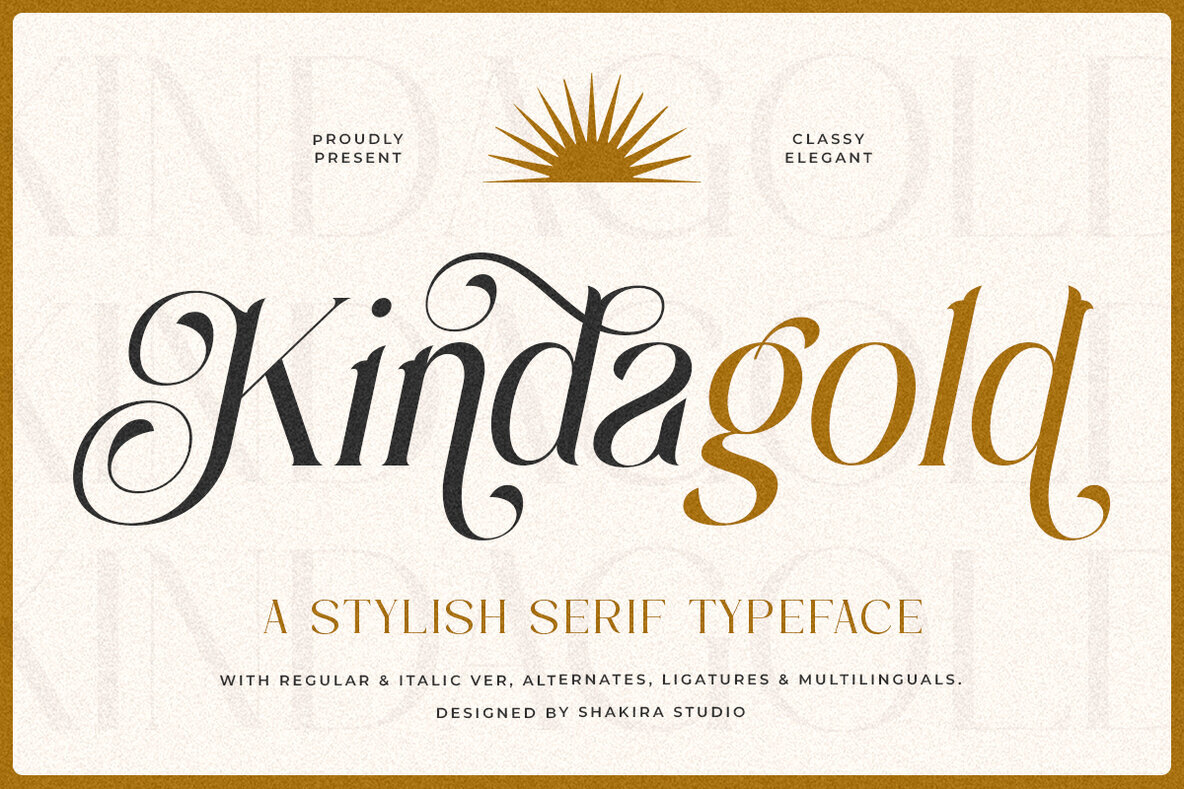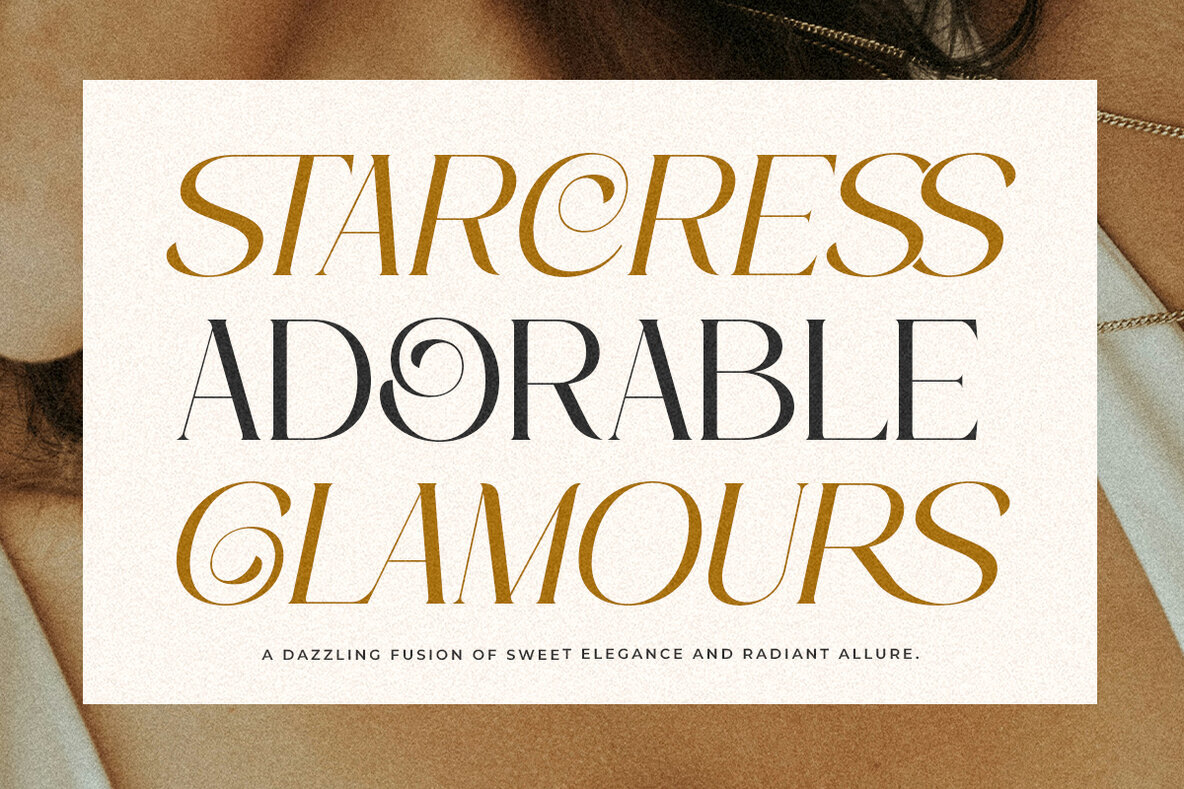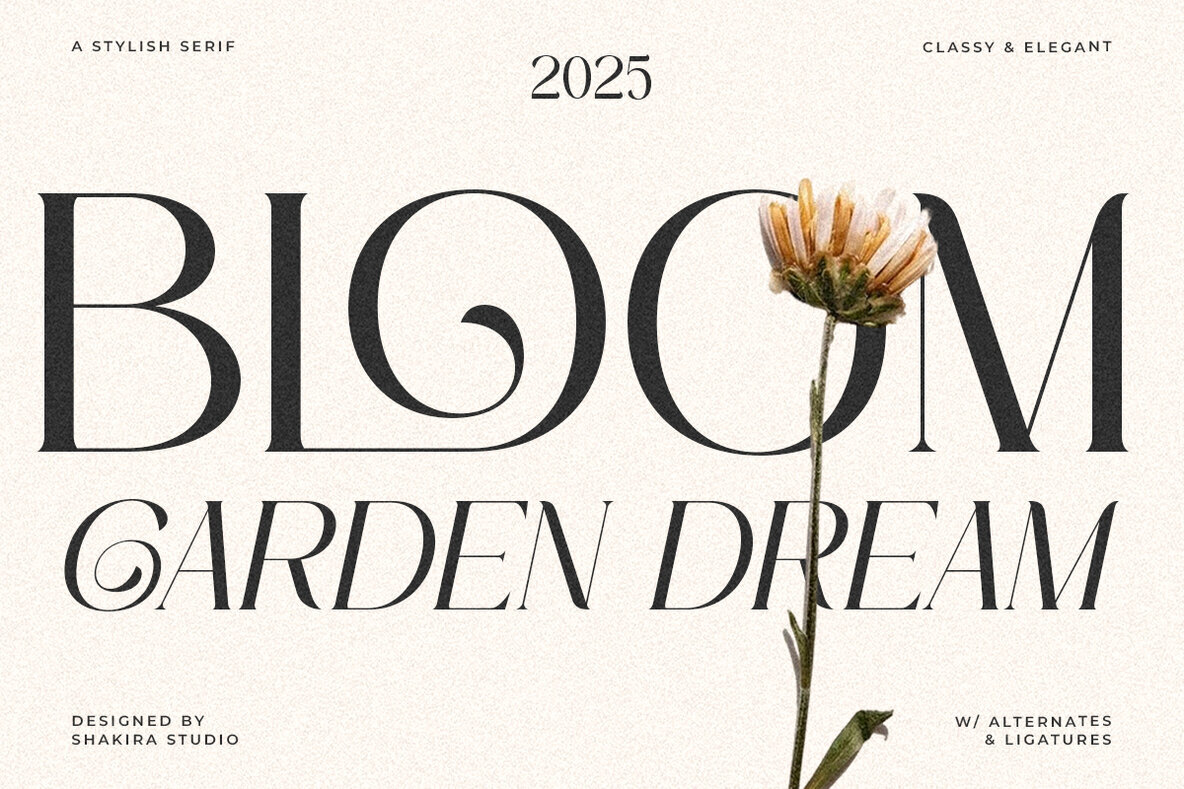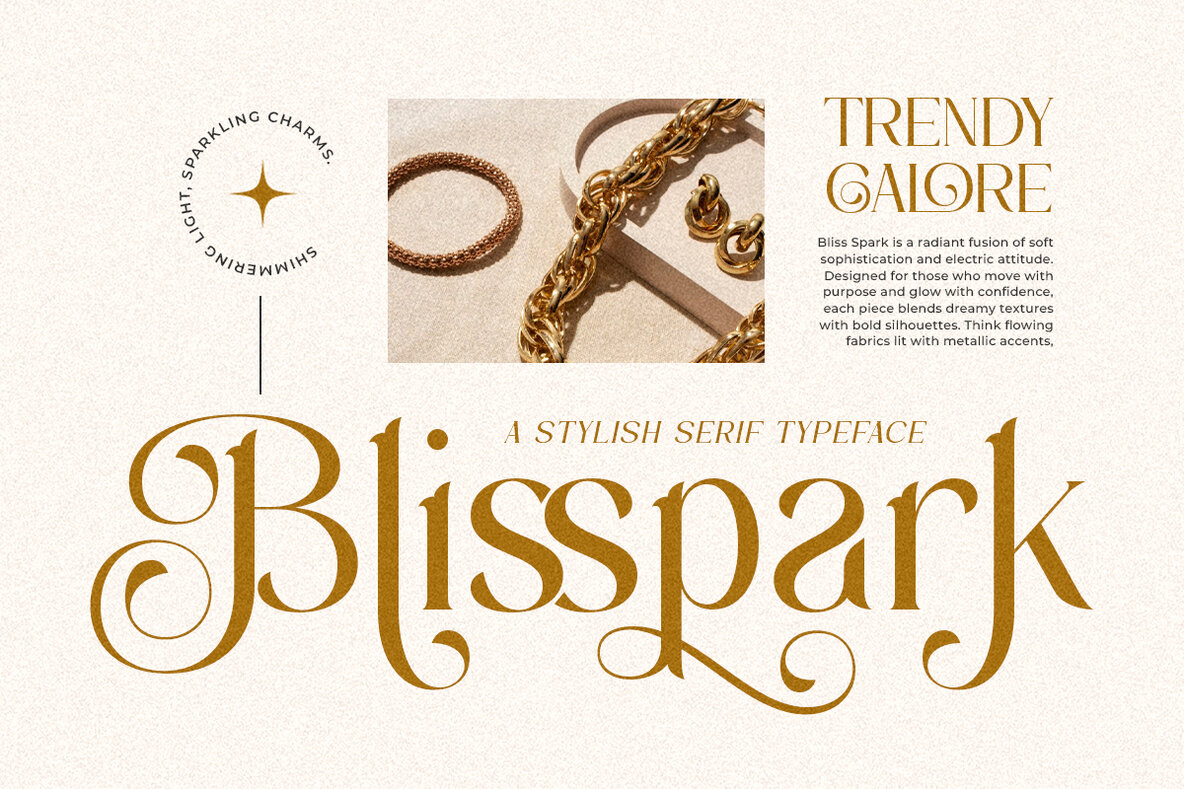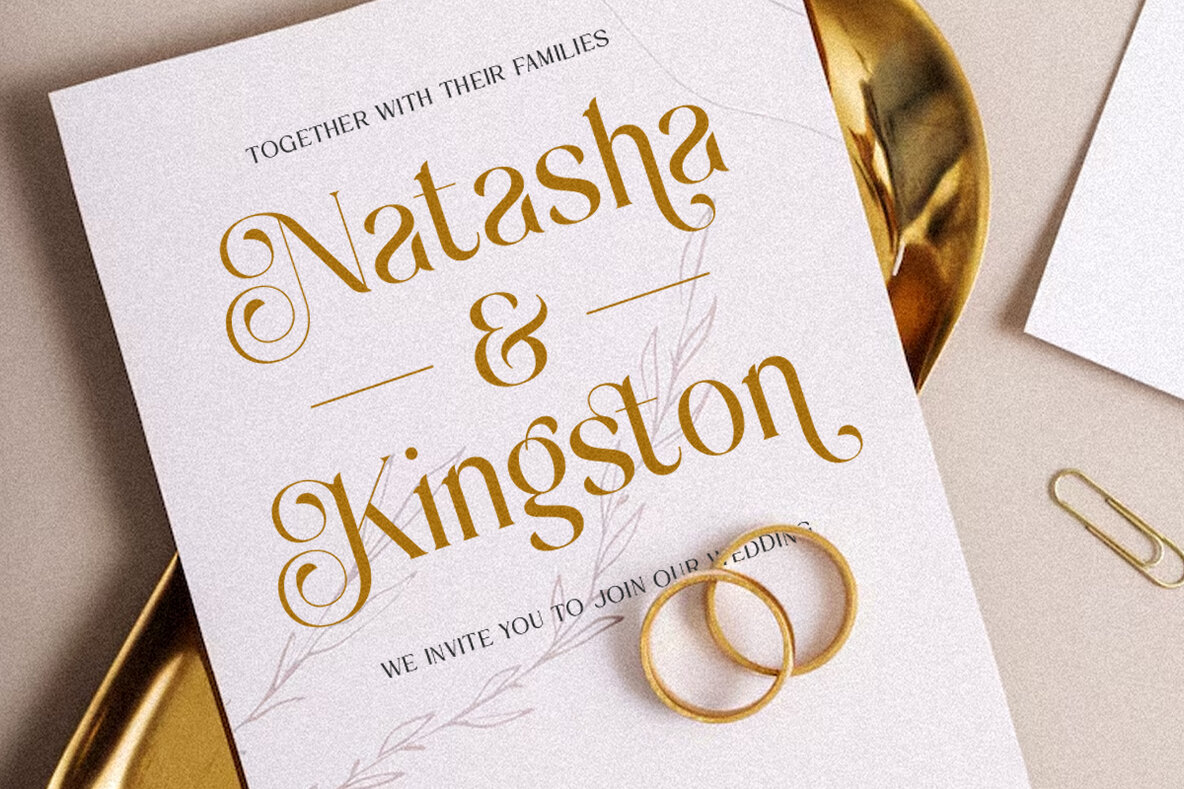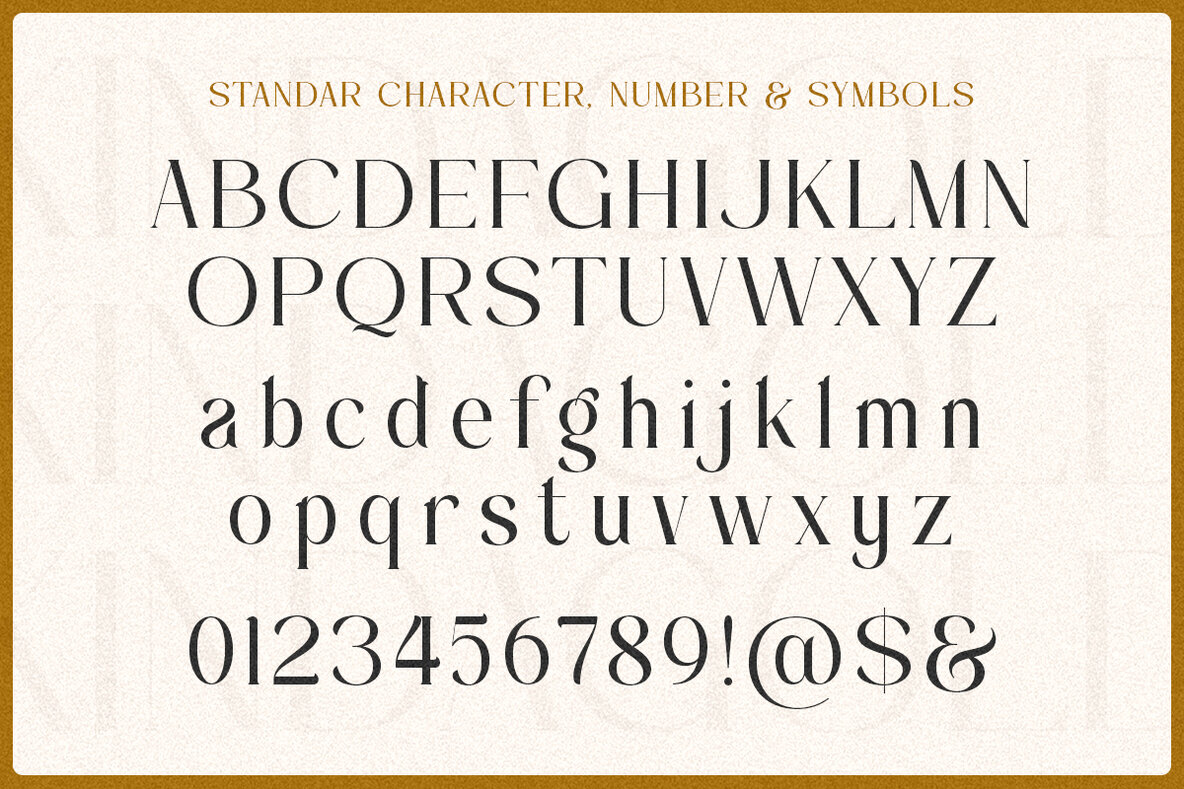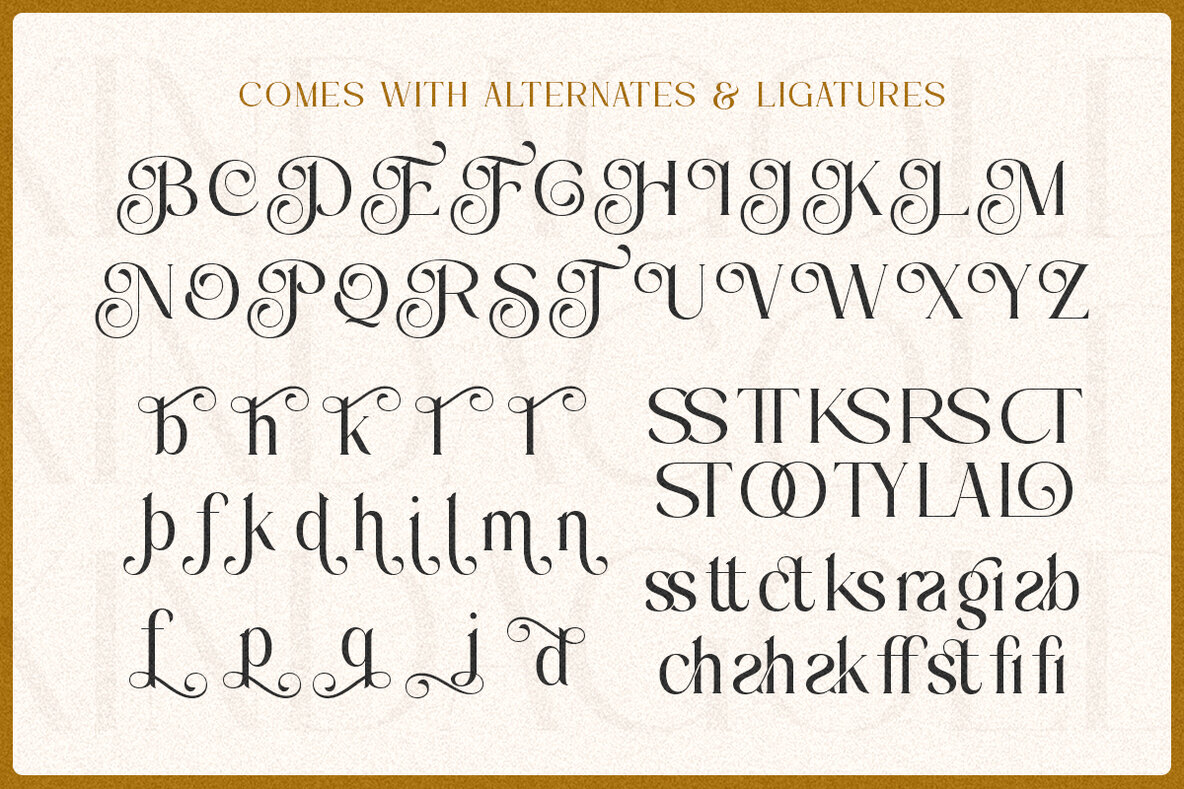
Kinda Gold Font
Kinda Gold Regular
Kinda Gold Italic
Discover Kinda Gold, a sophisticated serif typeface that seamlessly combines contemporary elegance with a hint of luxury. This font offers both Regular and Italic styles featuring exquisite alternates and ligatures, perfect for high-end branding, luxurious packaging, and editorials demanding refinement. Kinda Gold's graceful serifs and fluid italic variant provide exceptional versatility for brands seeking sophistication and impact. With meticulously designed alternates and ligatures, it enables flawless typographic harmony, making it ideal for distinctive visual identities. Elevate your brand with the luxurious appeal of Kinda Gold. Perfect for luxury fashion branding, high-end cosmetic packaging, premium editorial layouts, elegant logo creation, and sophisticated stationery design. Available now &8211; indulge in Kinda Gold's refined luxury today!Kinda Gold: Modern Elegant Serif Font
Where Modern Elegance Meets Timeless Sophistication